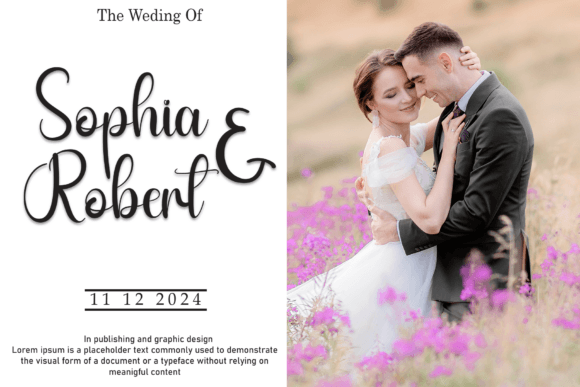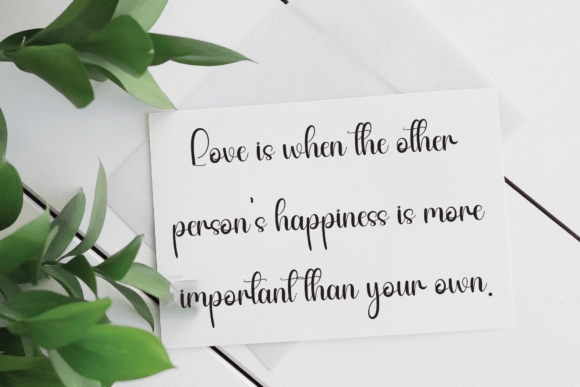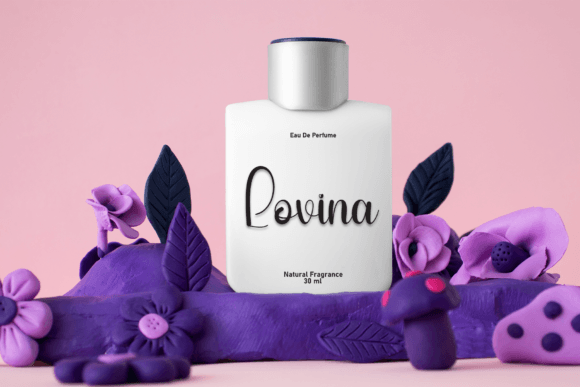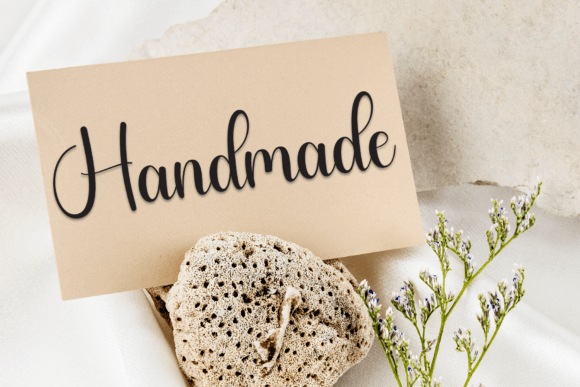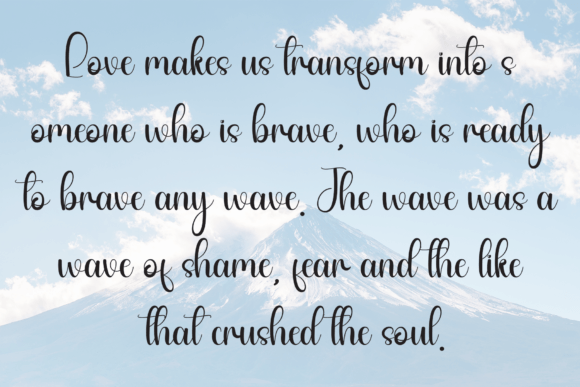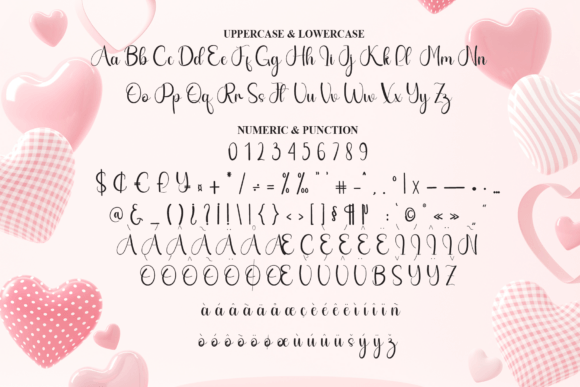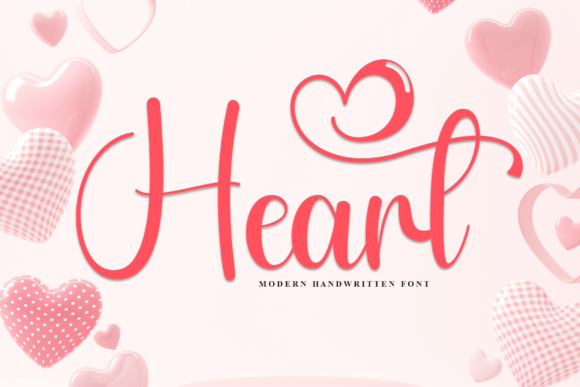
Introducing Heart Font: The Epitome of Elegance and Charm
Are you on the lookout for a font that adds a touch of sophistication and elegance to your designs? Look no further than Heart Font, a stylish handwritten script font that is sure to captivate your audience with its fluid, graceful strokes. In this article, we’ll delve into the world of Heart Font, exploring its features, uses, and benefits, and why it’s a must-have for designers and crafters alike.
The Beauty of Heart Font
Heart Font is a masterpiece of typography, boasting smooth curves and a natural flow that creates a timeless, refined look for any design. Its elegant strokes are perfect for adding a personal touch to your branding, invitations, and stationery, making it an excellent choice for those seeking to create a lasting impression. Whether you’re designing a wedding invitation, a business card, or a logo, Heart Font is sure to bring a touch of sophistication and glamour to your project.
Key Features of Heart Font
- Fluid, Graceful Strokes: Heart Font features fluid, handwritten strokes that exude elegance and charm.
- Perfect for Branding: Its sophisticated look makes it an excellent choice for branding, logos, and business cards.
- Invitations and Stationery: Add a personal touch to your invitations, wedding cards, and stationery with Heart Font’s elegant script.
- Timeless and Refined: The smooth curves and natural flow of Heart Font create a timeless, refined look that’s perfect for any design.
Uses of Heart Font
Heart Font is a versatile font that can be used in a variety of design projects, including:
- Wedding Invitations: Add a touch of romance and elegance to your wedding invitations with Heart Font.
- Branding and Logos: Create a sophisticated brand identity with Heart Font’s elegant script.
- Stationery and Greeting Cards: Add a personal touch to your stationery and greeting cards with Heart Font’s fluid strokes.
- Signage and Displays: Use Heart Font to create eye-catching signage and displays that exude elegance and charm.
Benefits of Using Heart Font
So, why choose Heart Font for your design projects? Here are just a few benefits:
- Elegance and Sophistication: Heart Font adds a touch of elegance and sophistication to any design.
- Versatility: Use Heart Font in a variety of design projects, from branding and logos to invitations and stationery.
- Easy to Read: Heart Font’s clear and fluid strokes make it easy to read, even at small sizes.
- Unique and Creative: Stand out from the crowd with Heart Font’s unique and creative script.
Tips for Using Heart Font
Here are a few tips for getting the most out of Heart Font:
- Pair with Other Fonts: Pair Heart Font with other fonts to create a unique and creative look.
- Use in Combination with Images: Use Heart Font in combination with images to create a visually appealing design.
In conclusion, Heart Font is a stylish handwritten script font that is sure to add a touch of elegance and charm to any design. With its fluid, graceful strokes and timeless, refined look, it’s perfect for branding, invitations, and stationery. Whether you’re a designer or crafter, Heart Font is a must-have font that is sure to inspire your creativity and take your designs to the next level.